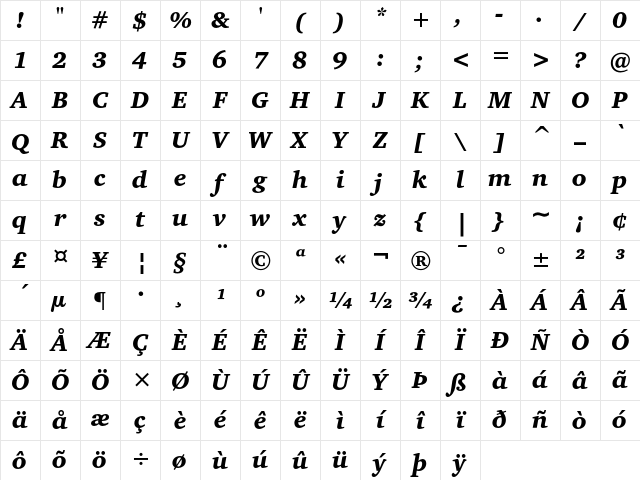
CharterITCBlack Italic
Foundry: ParaType Inc.
Designer: Matthew Carter, Vladimir Yefimov
Design Context for CharterITCBlack
CharterITCBlack is a composed and adaptable typeface that performs quietly and consistently across a wide range of design contexts. The slanted form adds forward momentum and visual energy.